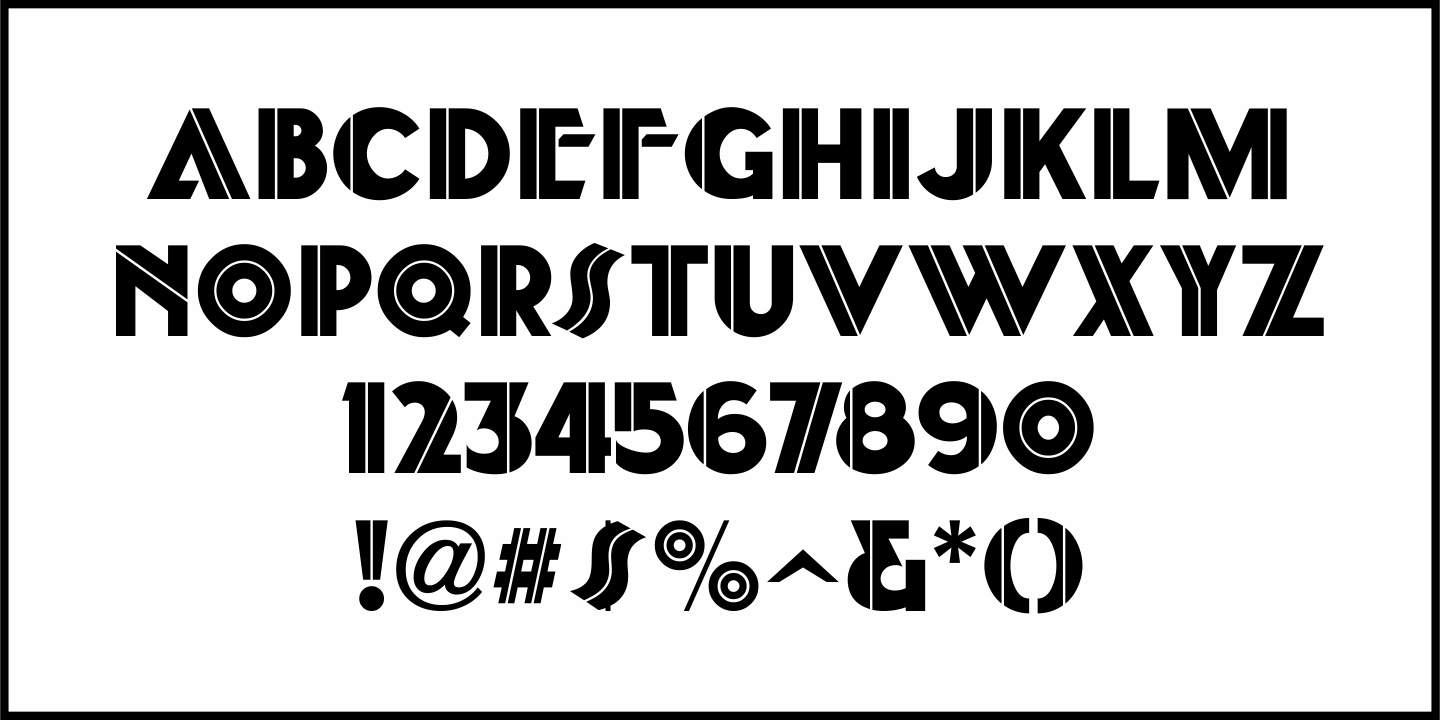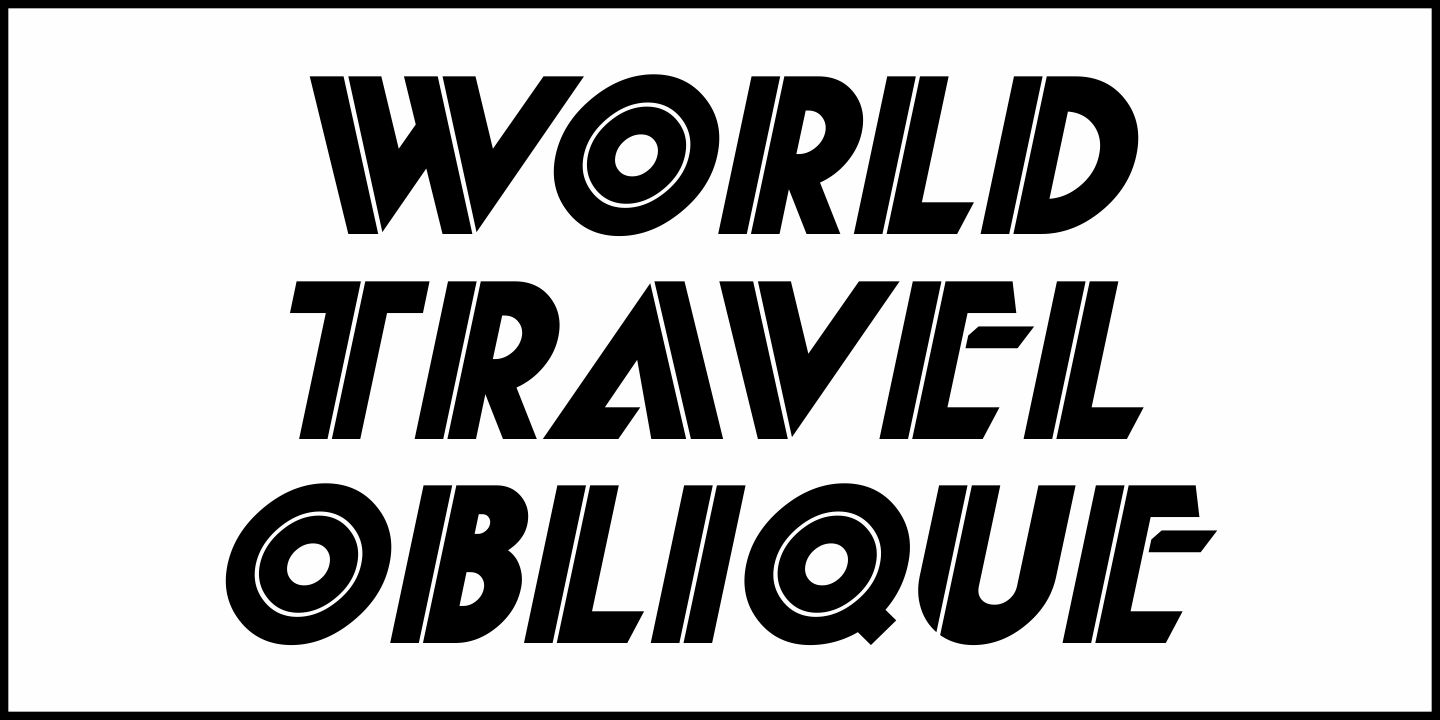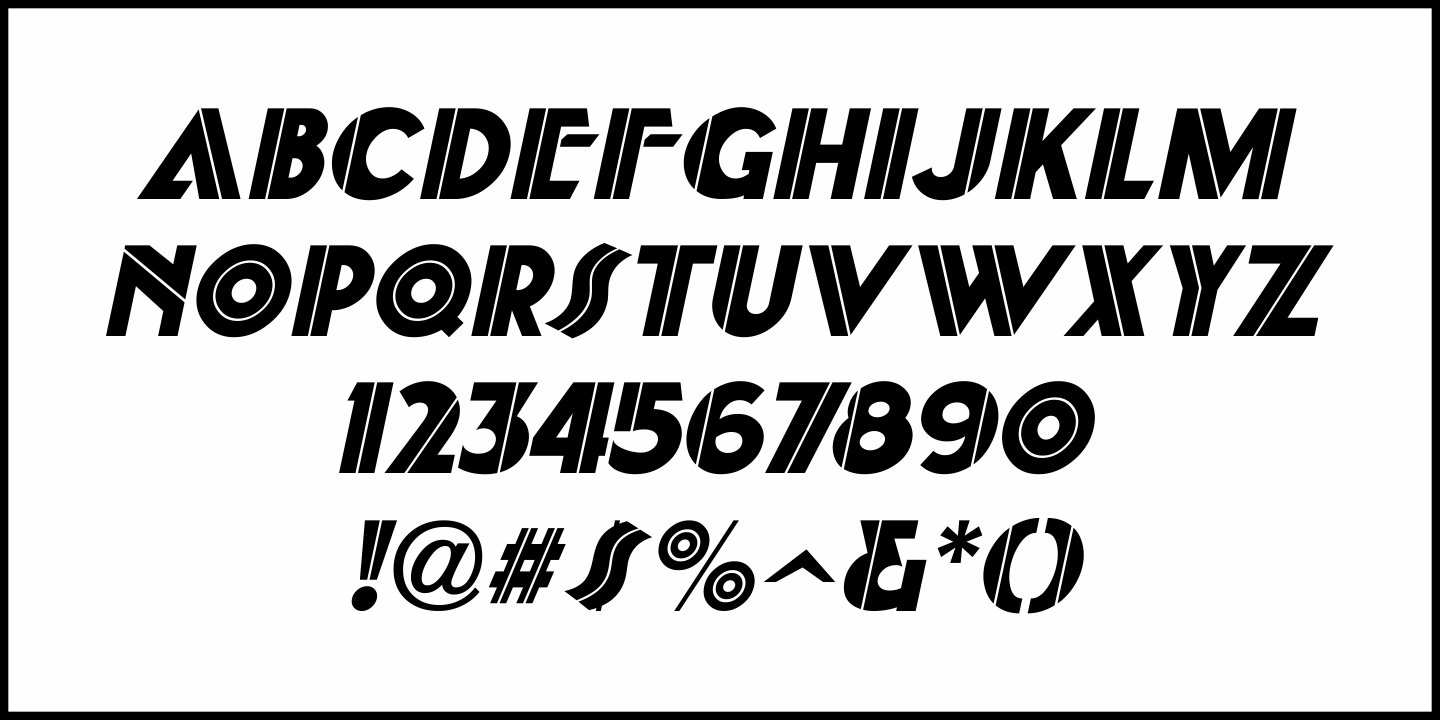
World Travel
Inspired by the hand lettering found on a 1930s travel poster promoting visits to India, this bold sans serif Art Deco type design feature incised lines and a stylized A,E,F and S.
World Travel JNL is available in both regular and oblique versions.
World Travel JNL Regular by Jeff Levine Fonts